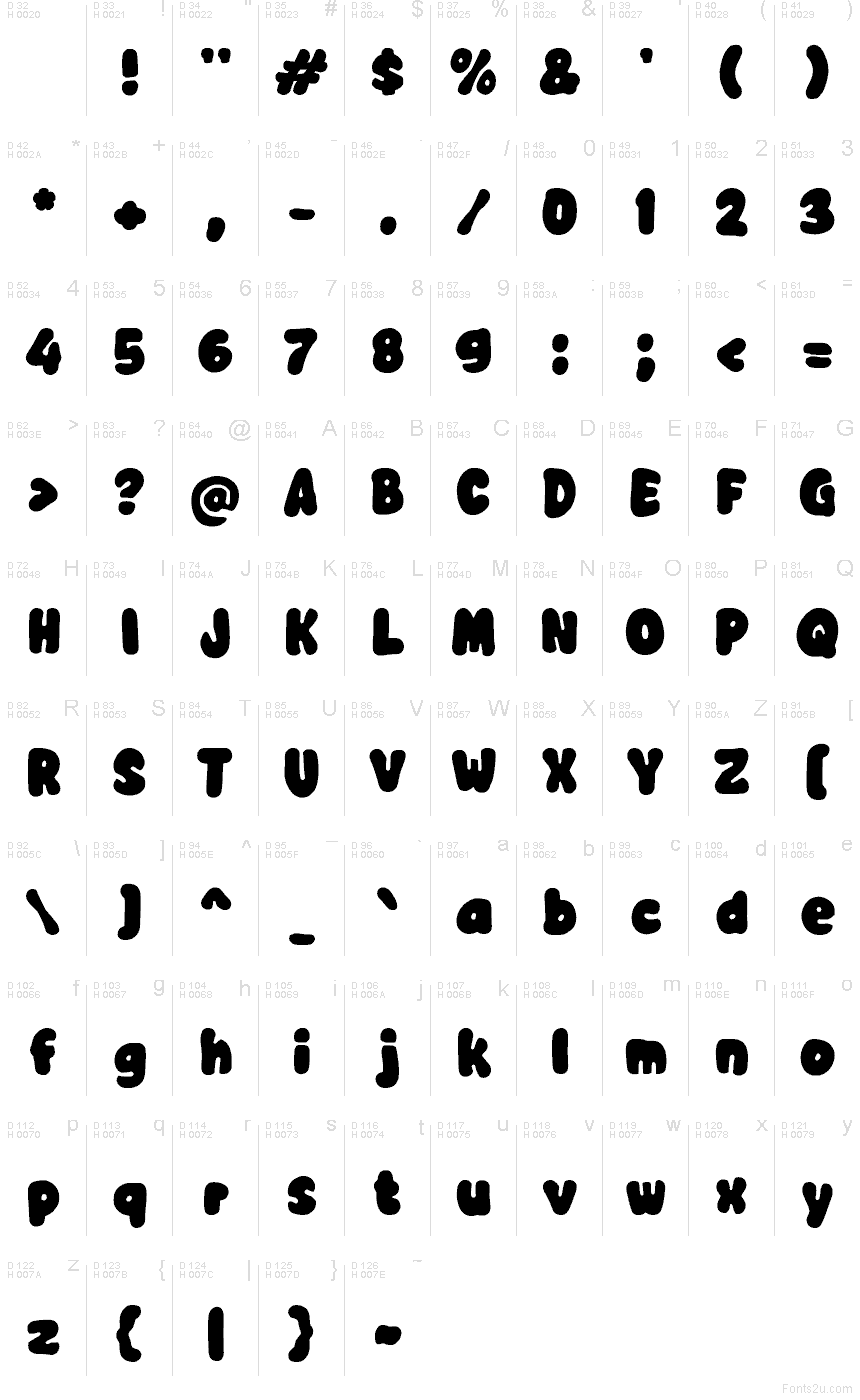
Yabikoma
Yabikoma font by wepfont.com is a free cartoon display typeface with bold, blobby shapes that look like they’ve been piped out of thick ink or soft clay. The letters sit close and cozy, forming chunky word shapes that feel friendly, loud, and a little mischievous, with smooth curves that practically bounce across the line. It’s the kind of lettering that grabs attention without ever feeling sharp or serious.
Using Yabikoma, you can instantly kid-proof posters, snack packaging, game titles, classroom printables, YouTube thumbnails, and playful logo wordmarks. This free font shines when set large, where its bubbly silhouettes turn simple text into a graphic element. Pair it with a clean, light sans-serif for small supporting copy to keep everything readable while Yabikoma brings the personality.